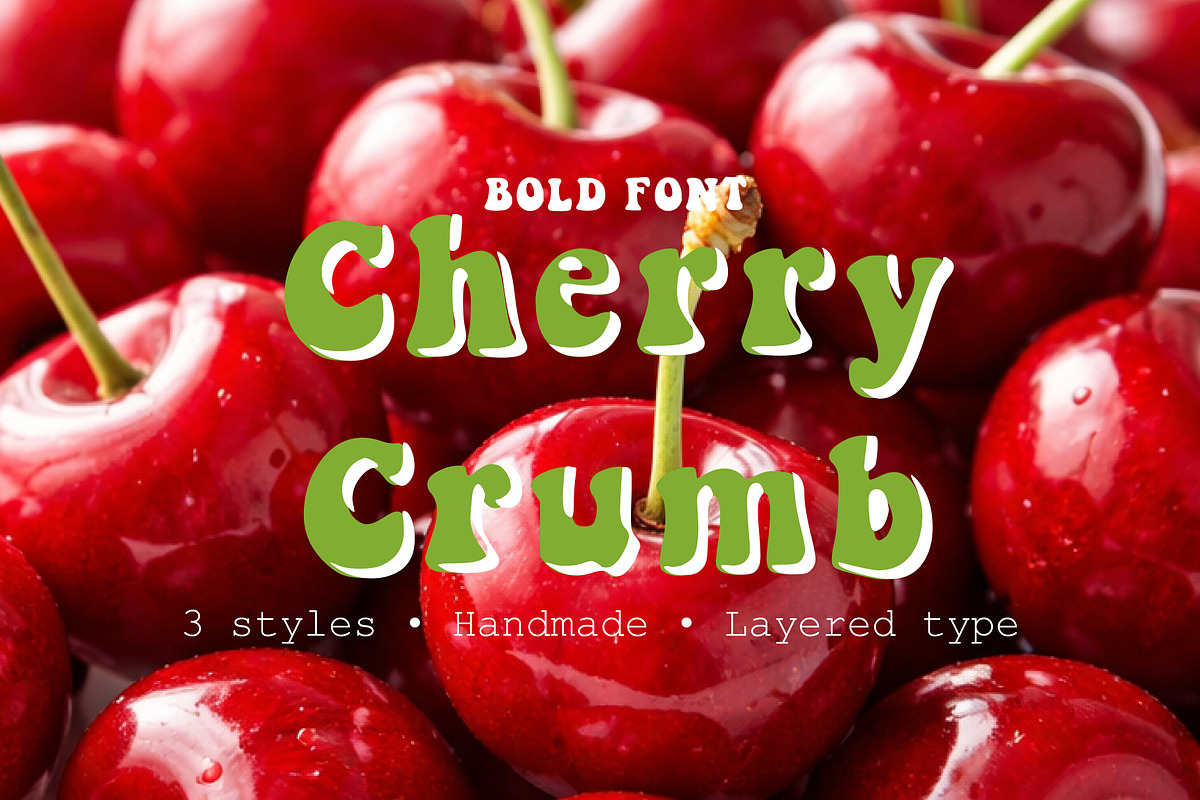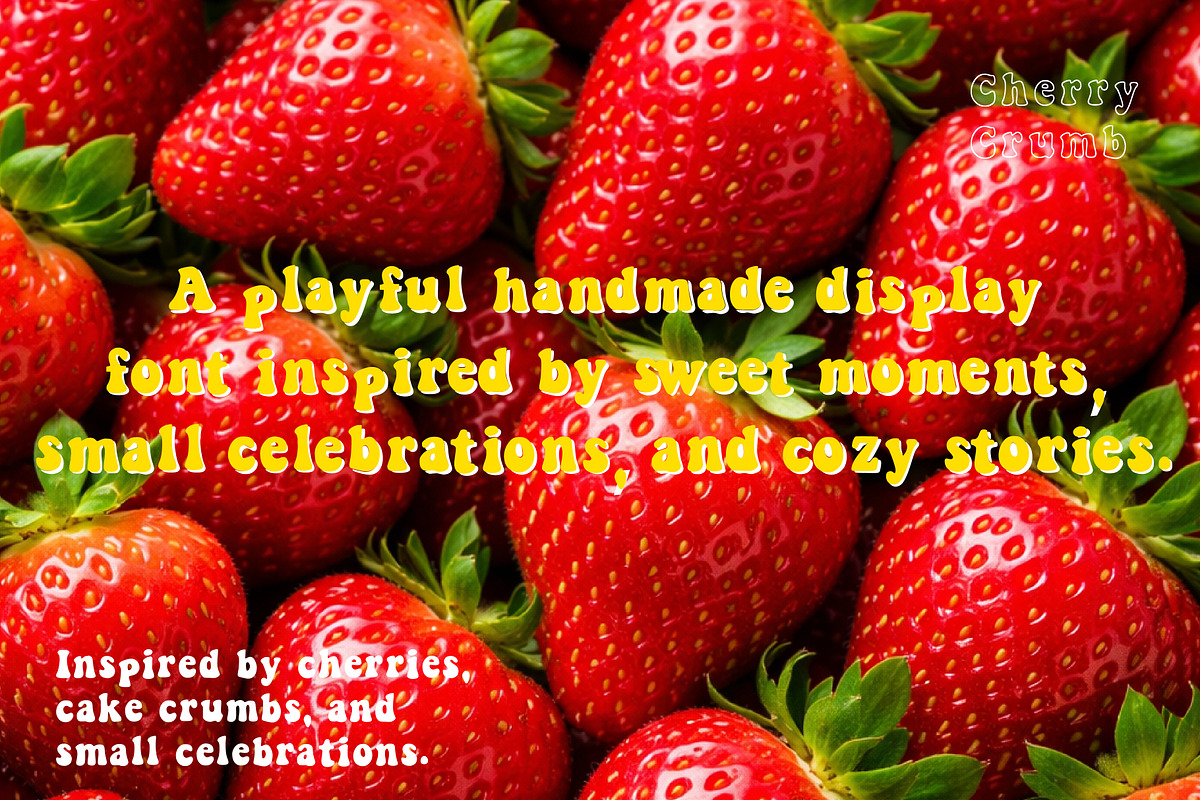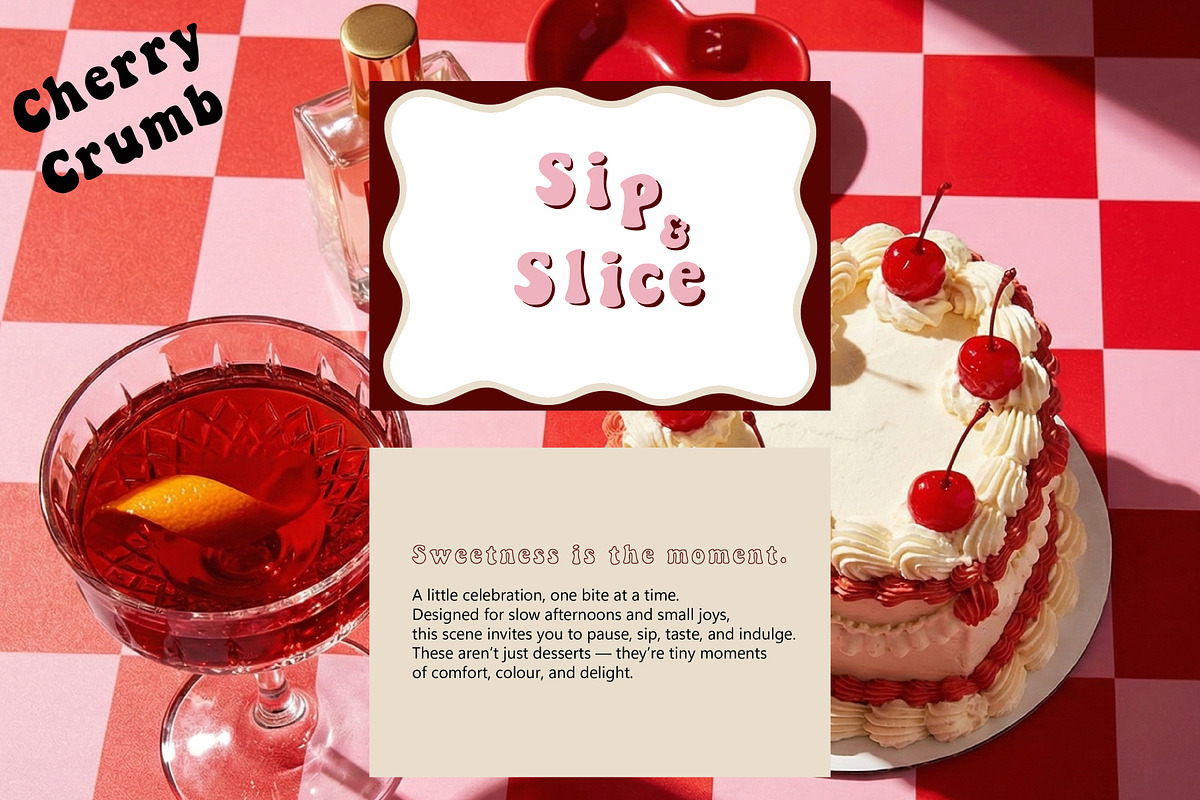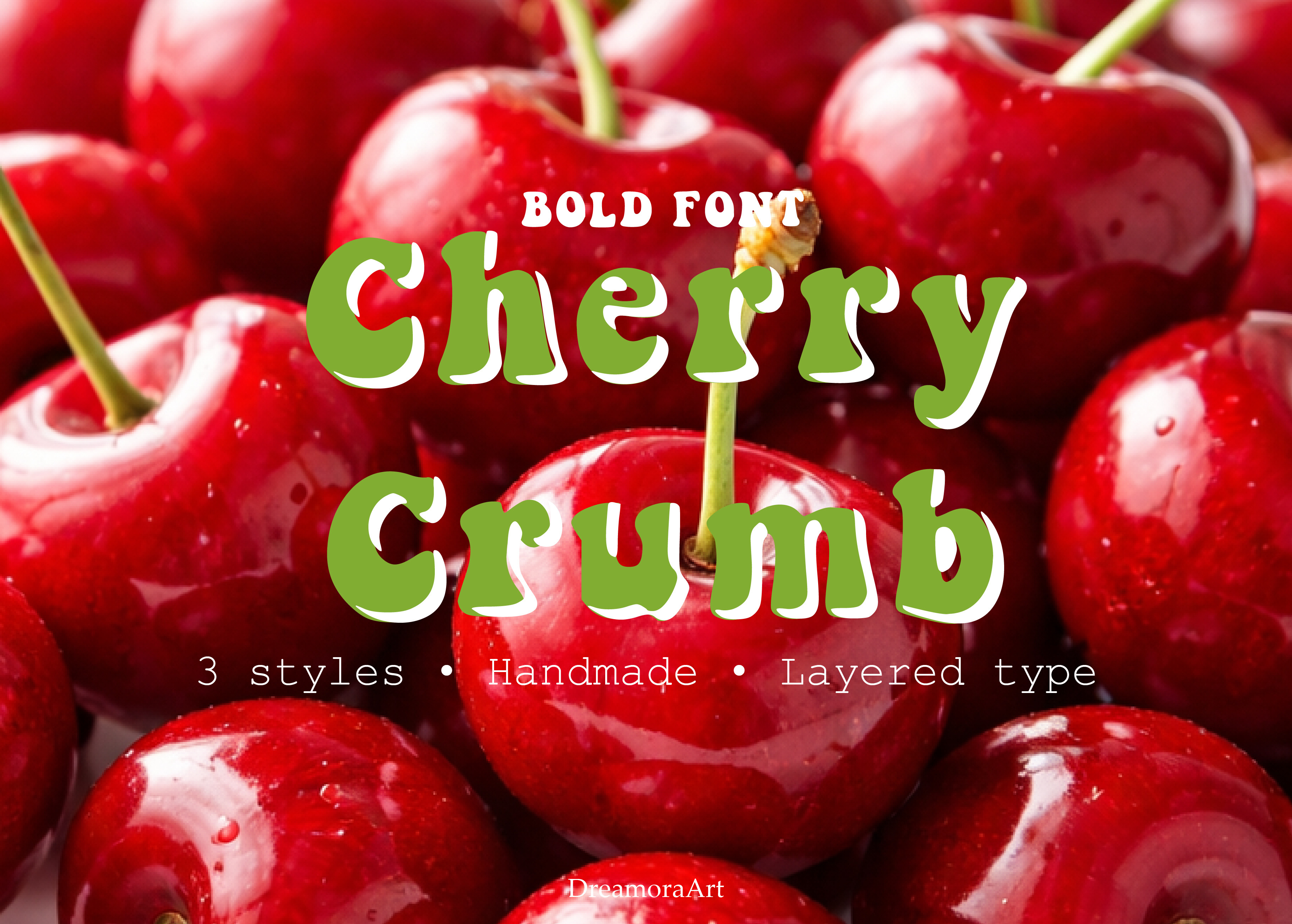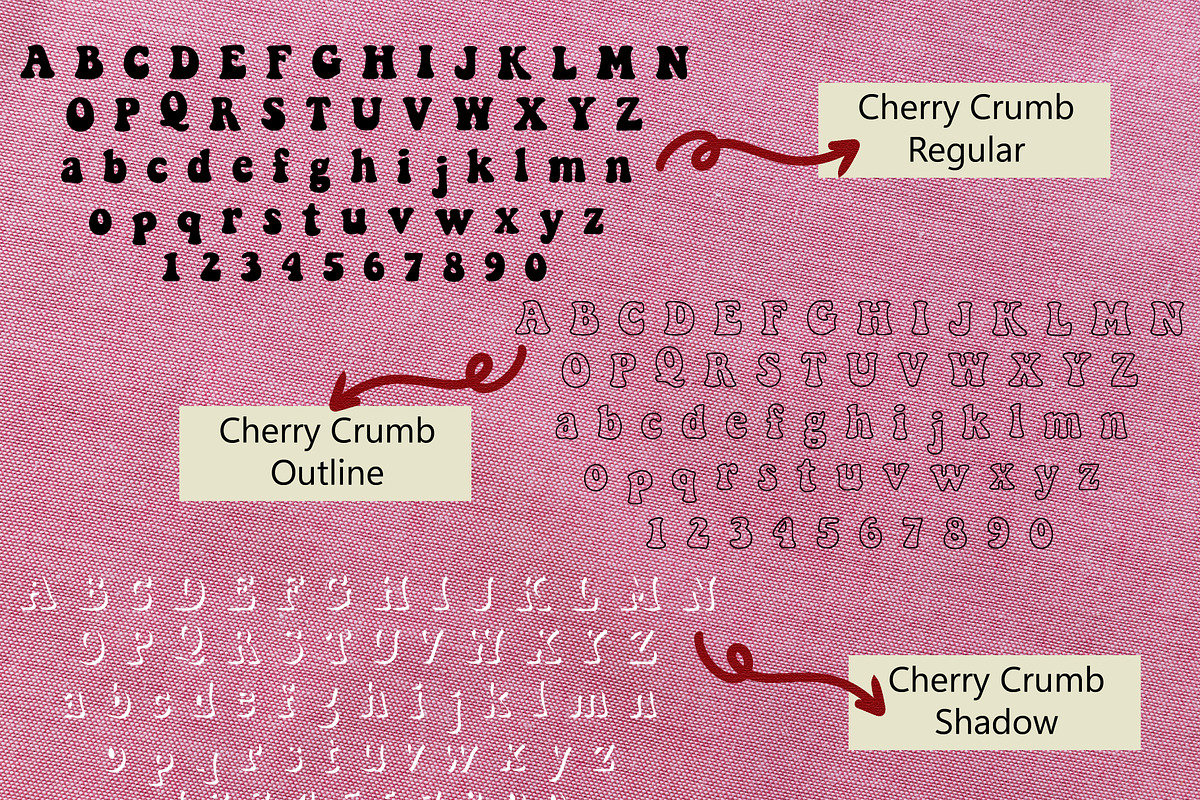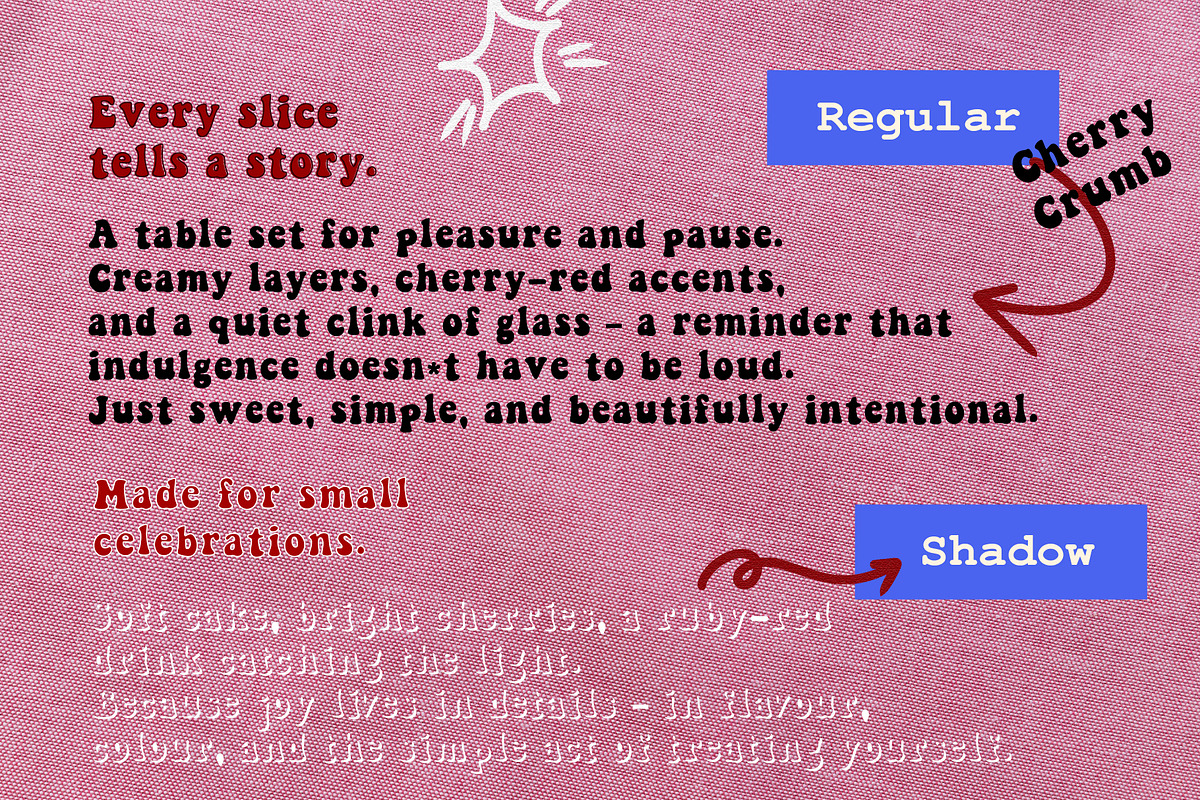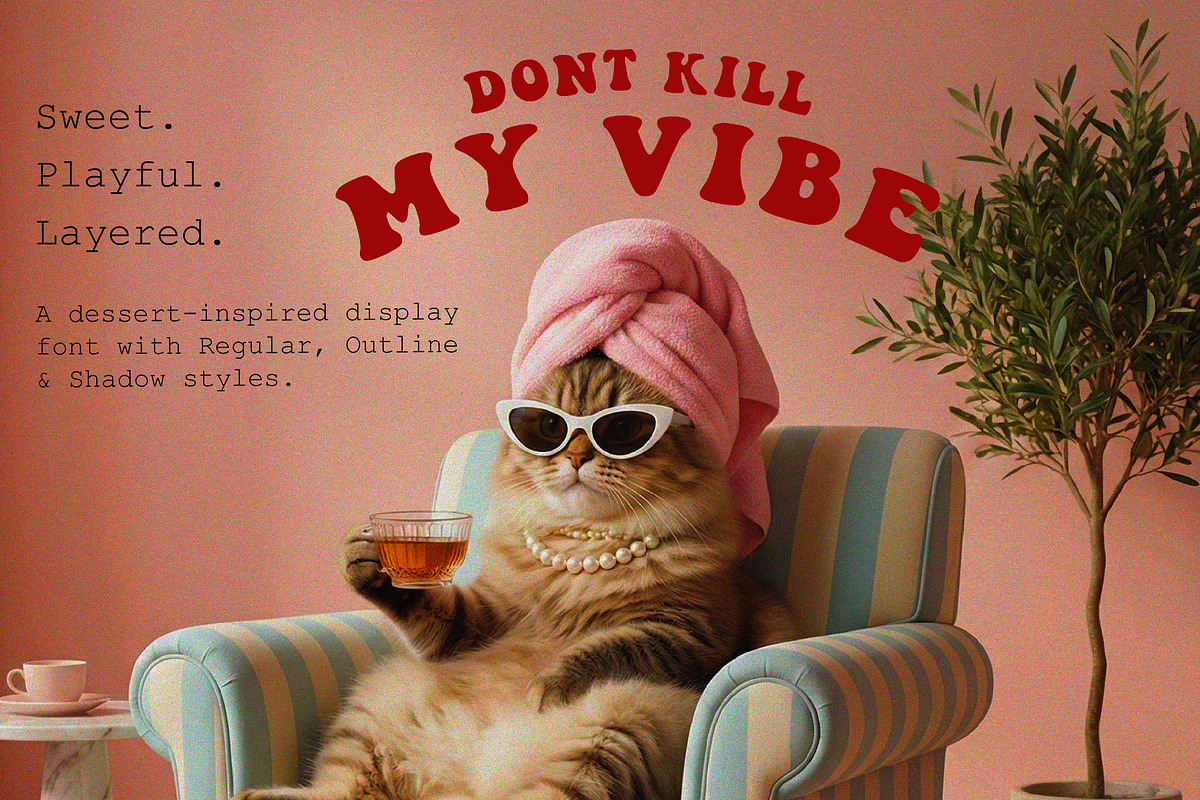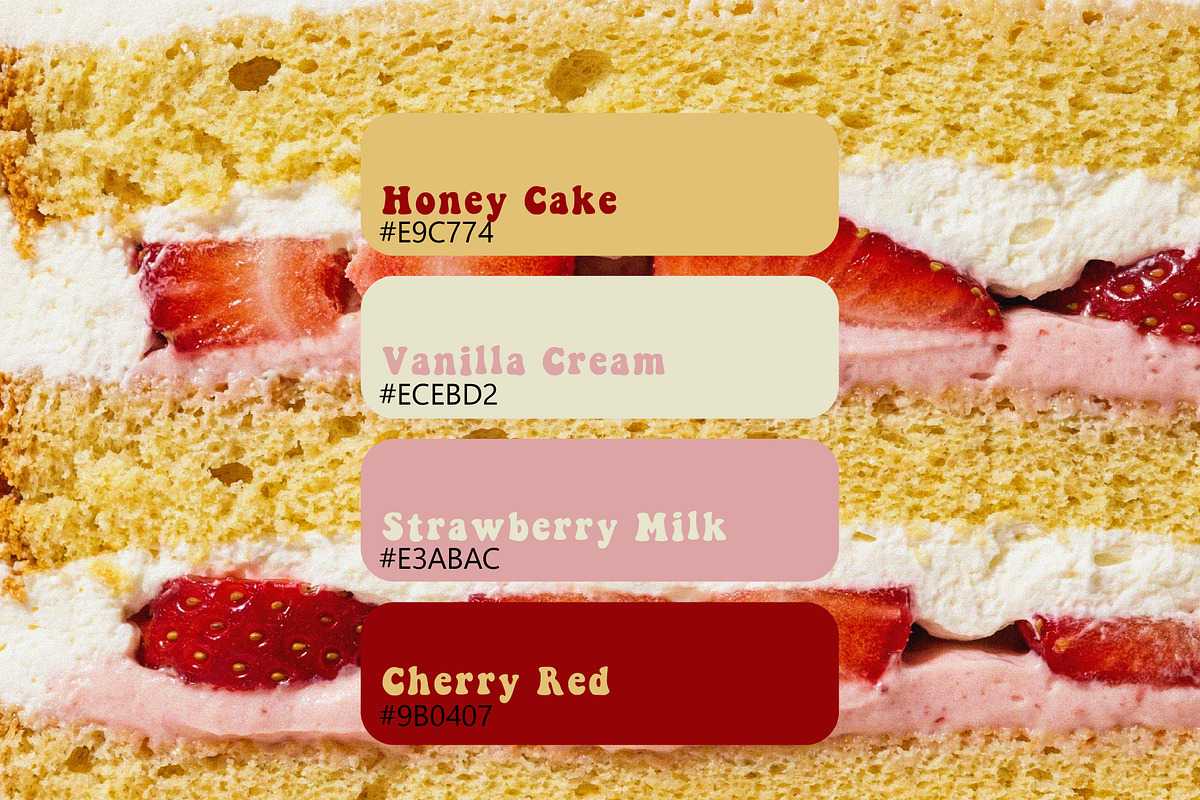
Cherry Crumb — Playful Display Font
Cherry Crumb is a playful, handmade display font inspired by sweet desserts, cherry reds, cozy cafés, and small joyful moments.
✨ Features
3 font styles: Regular, Outline & Shadow Uppercase & lowercase letters Numbers & basic punctuation Handmade, playful display style Easy to layer for depth and texture
Give your typography a sweet twist with Cherry Crumb — a font made for small celebrations and big smiles.